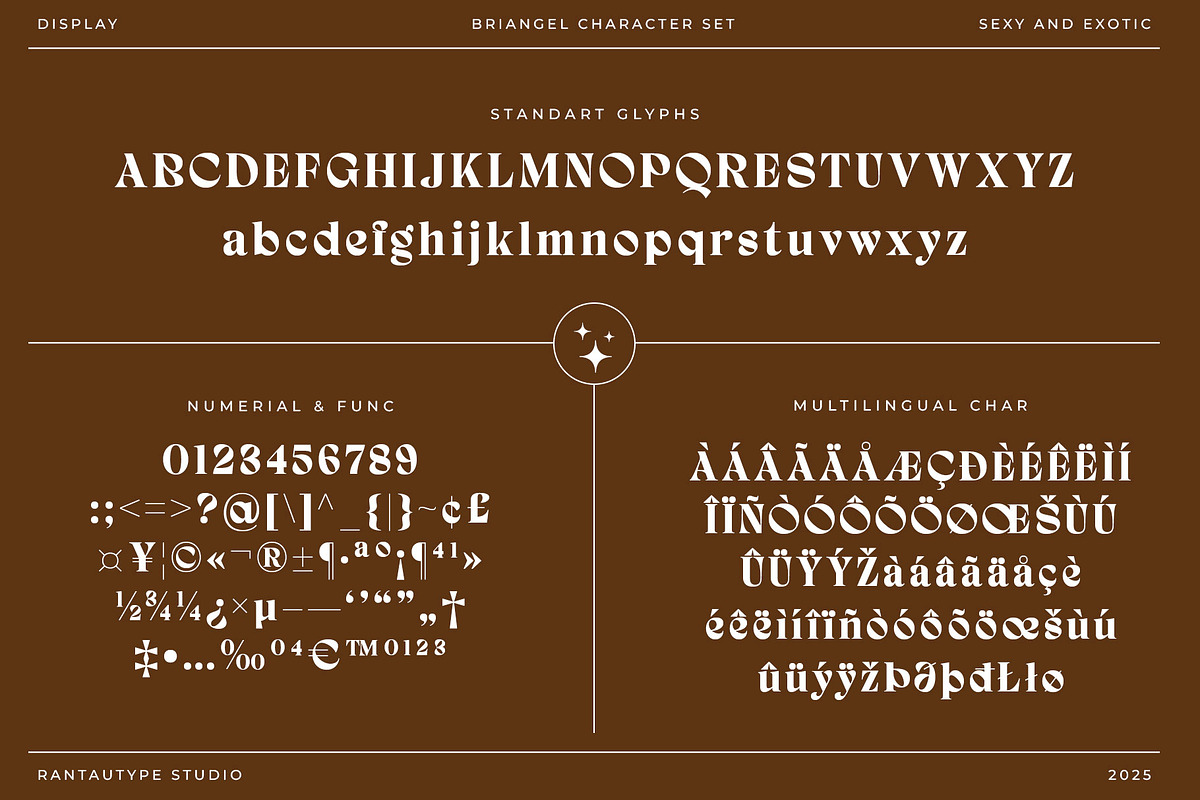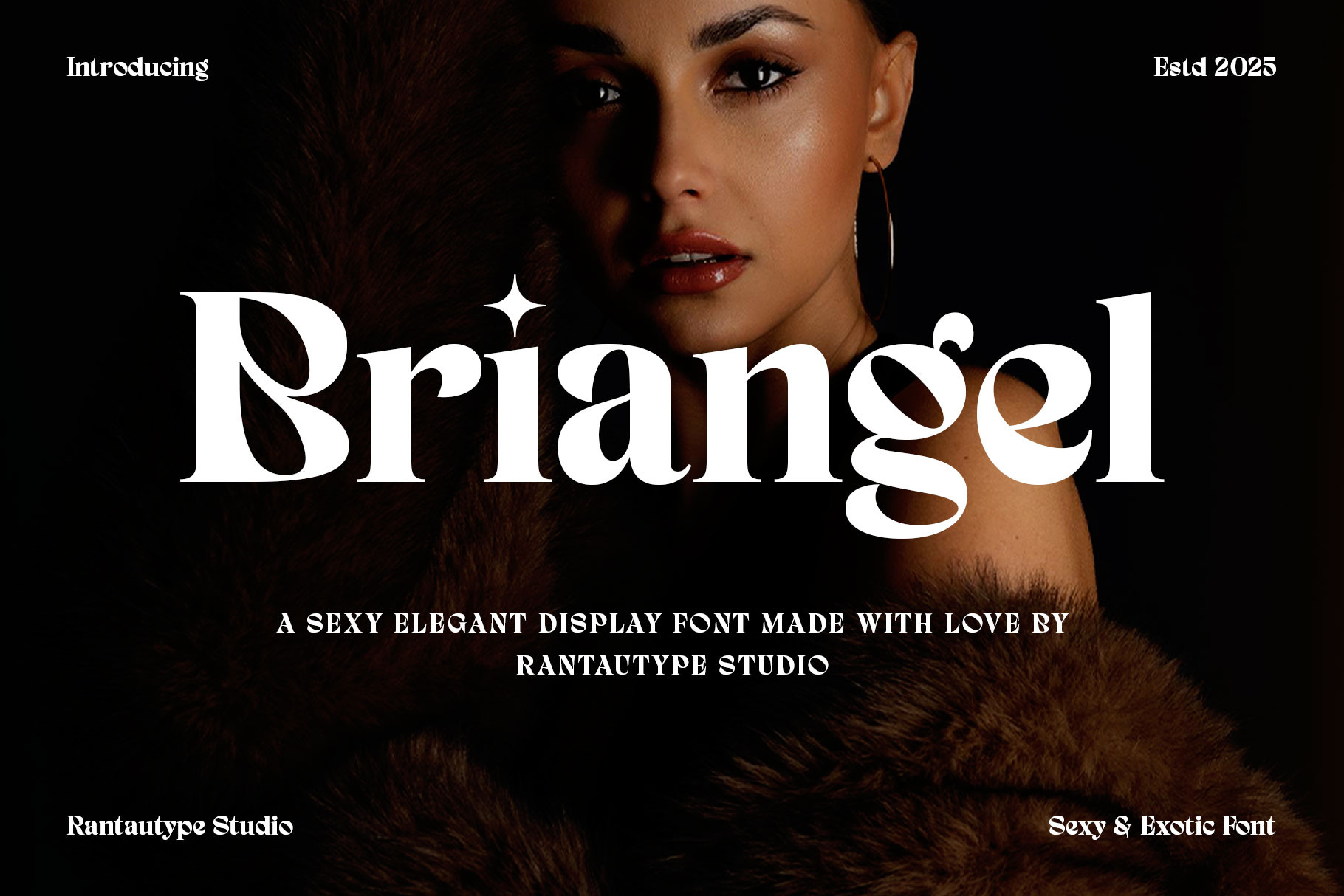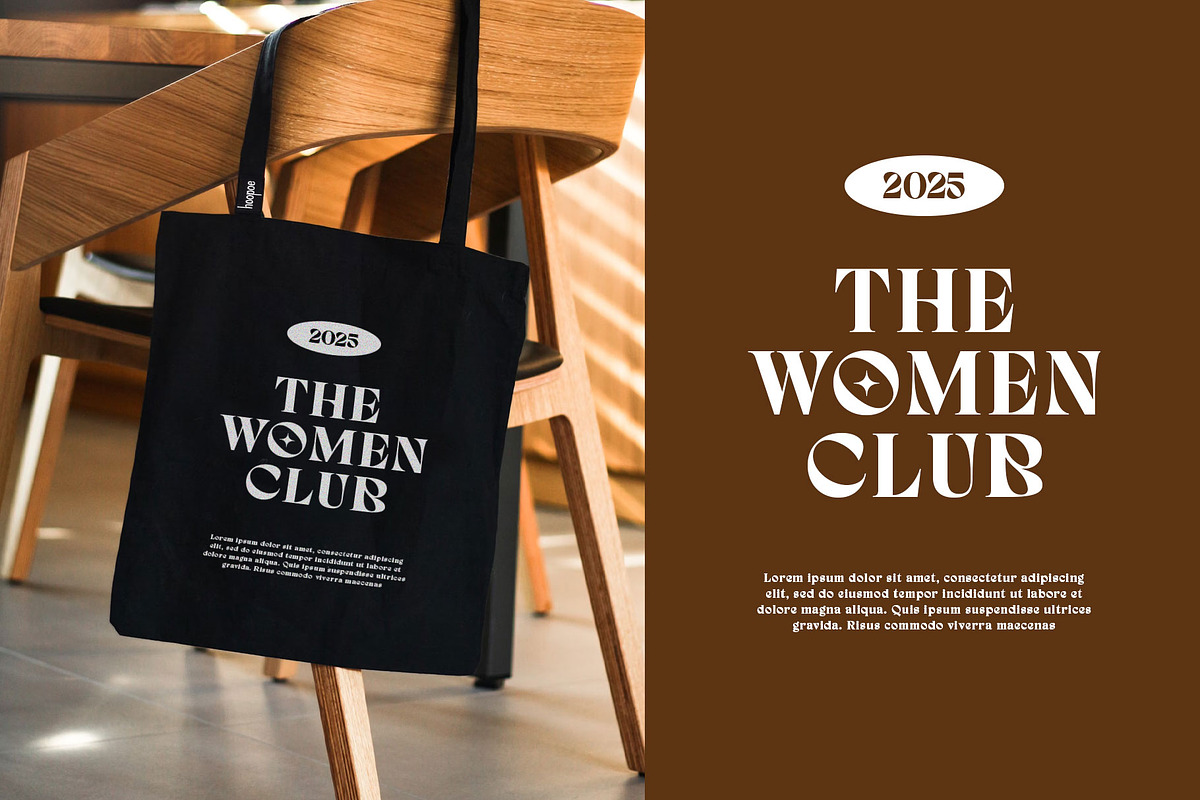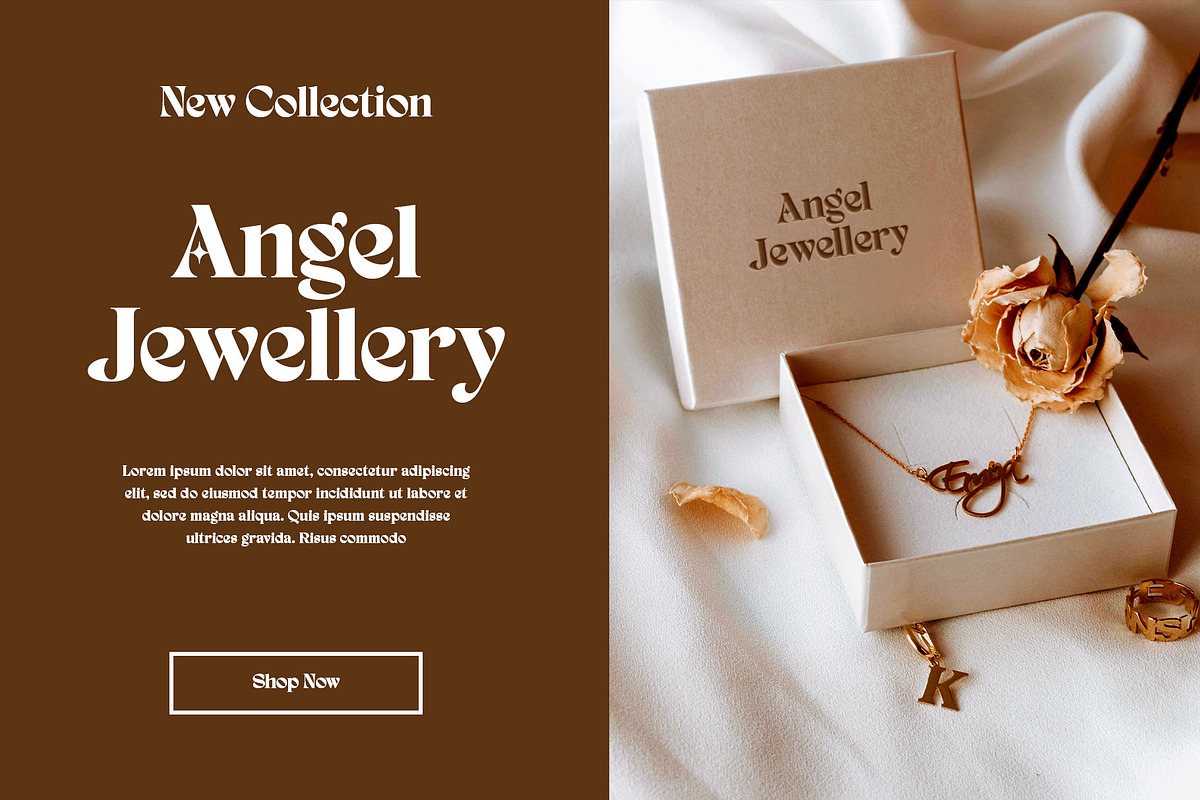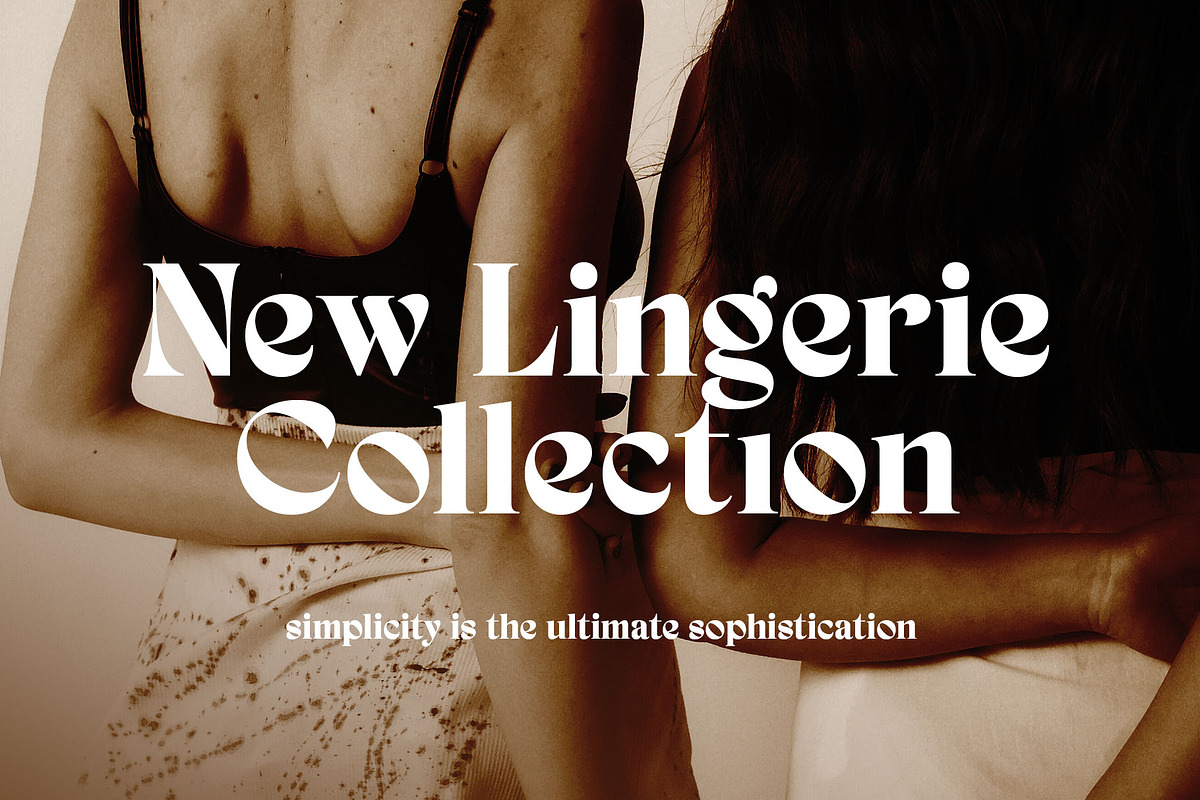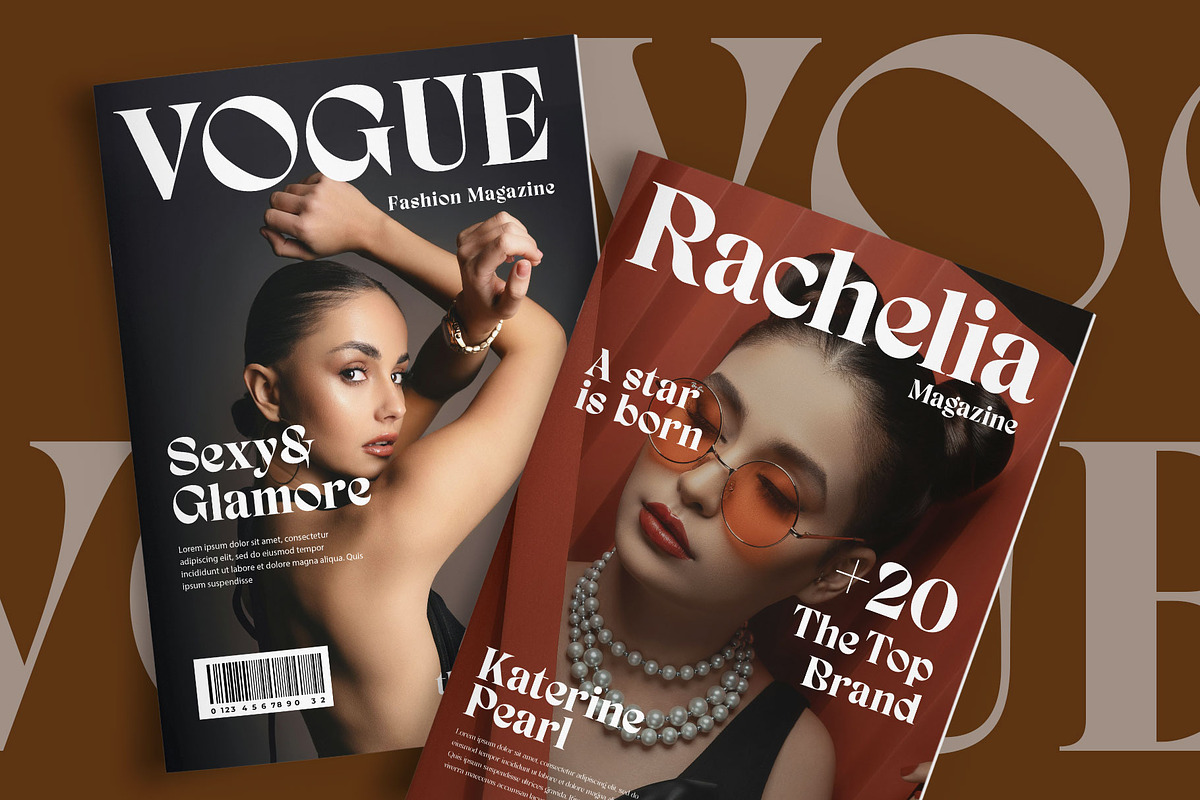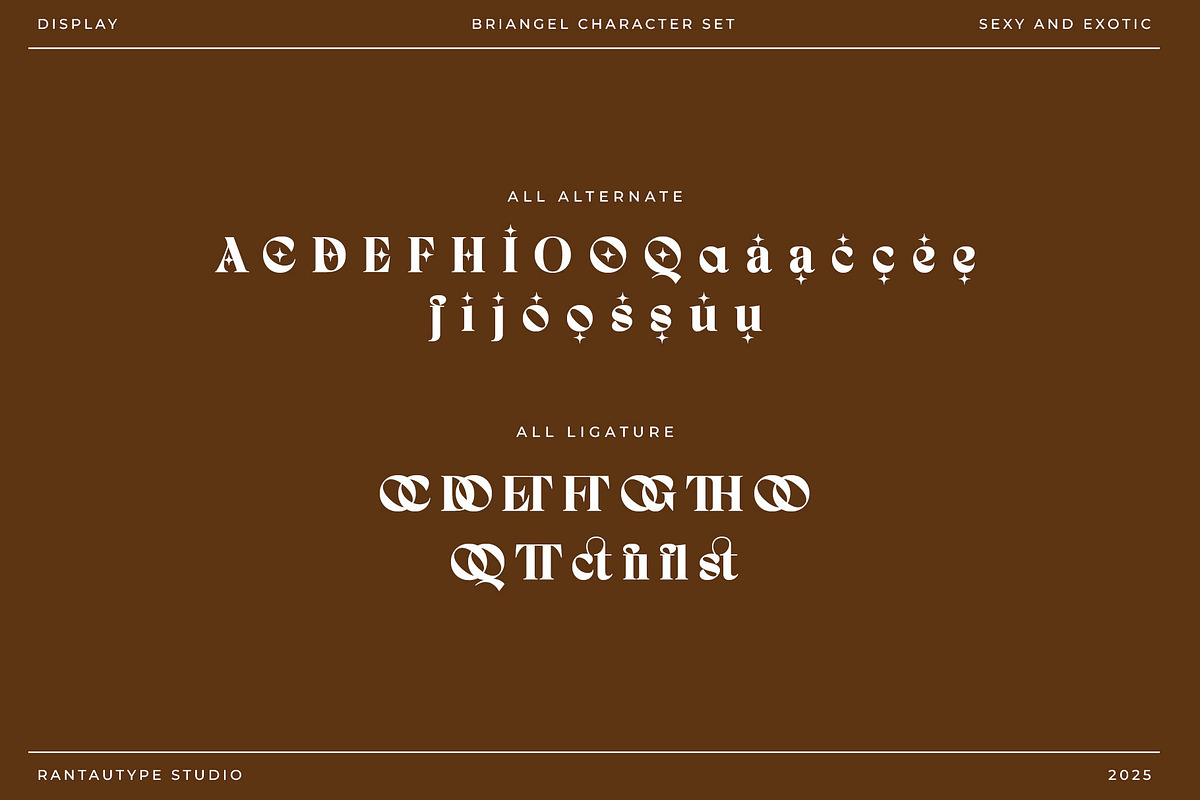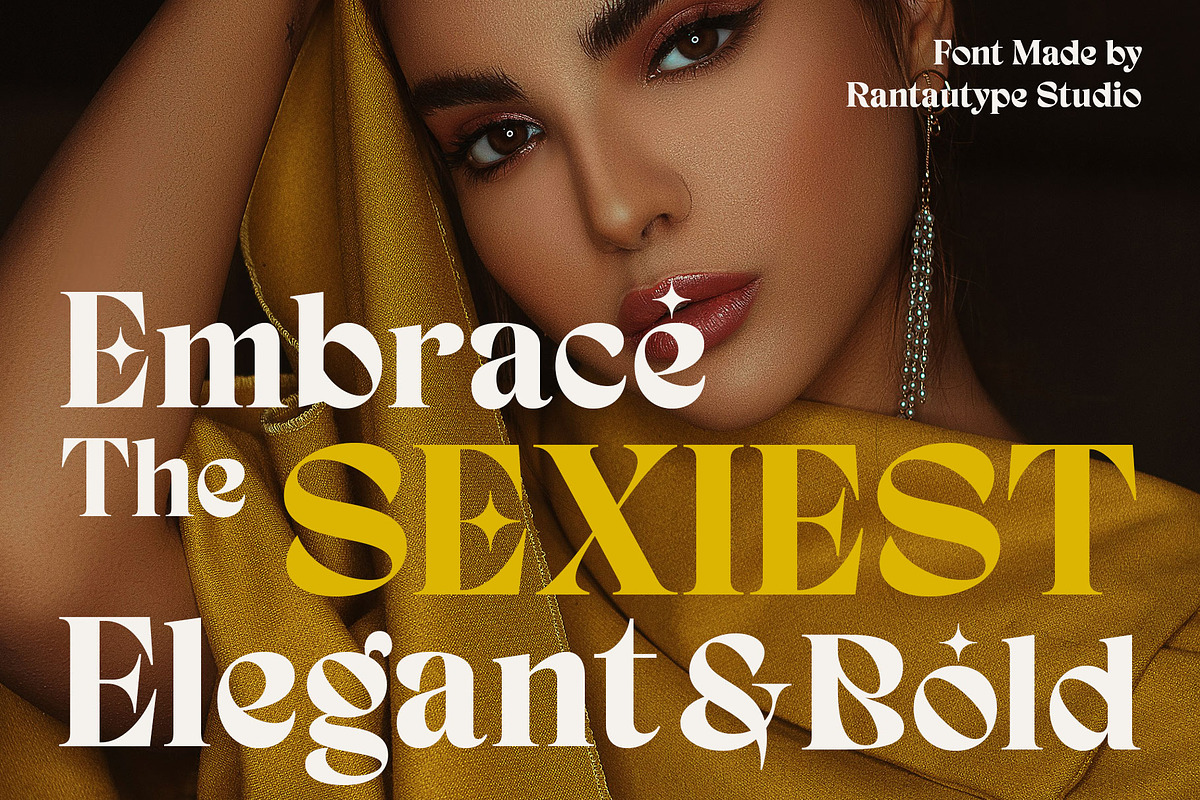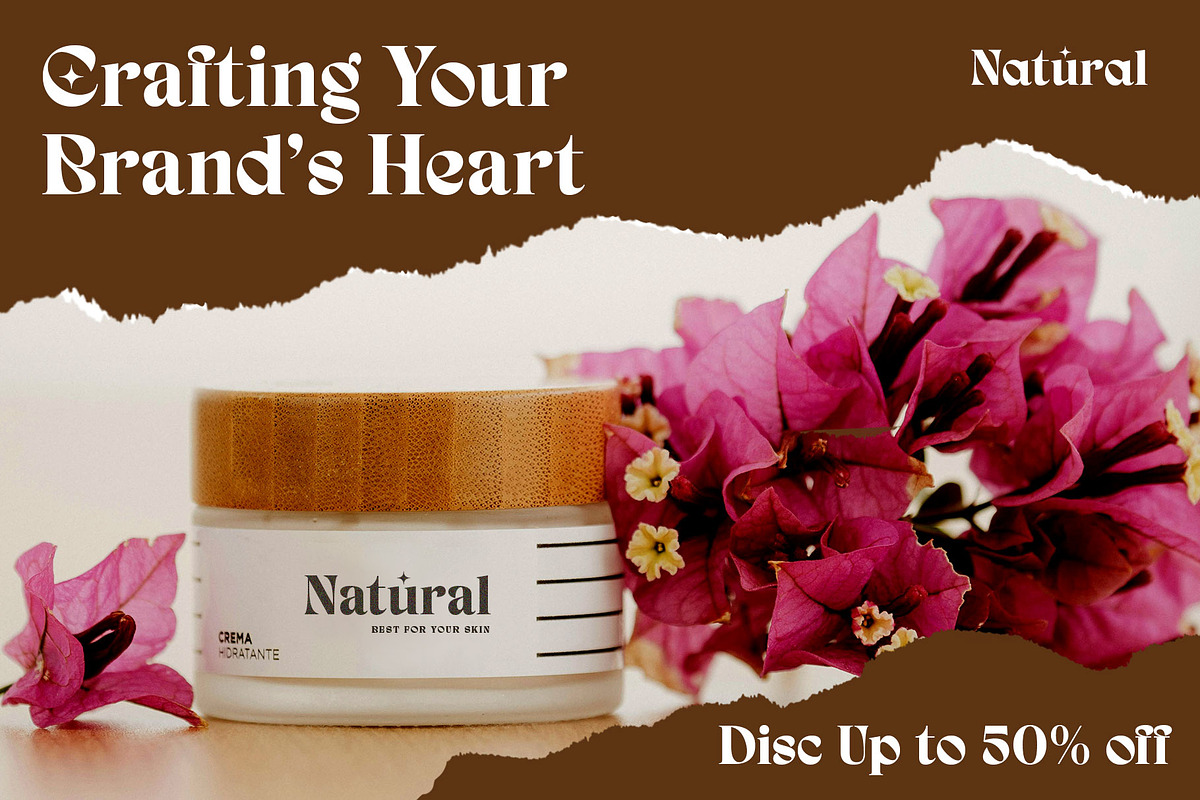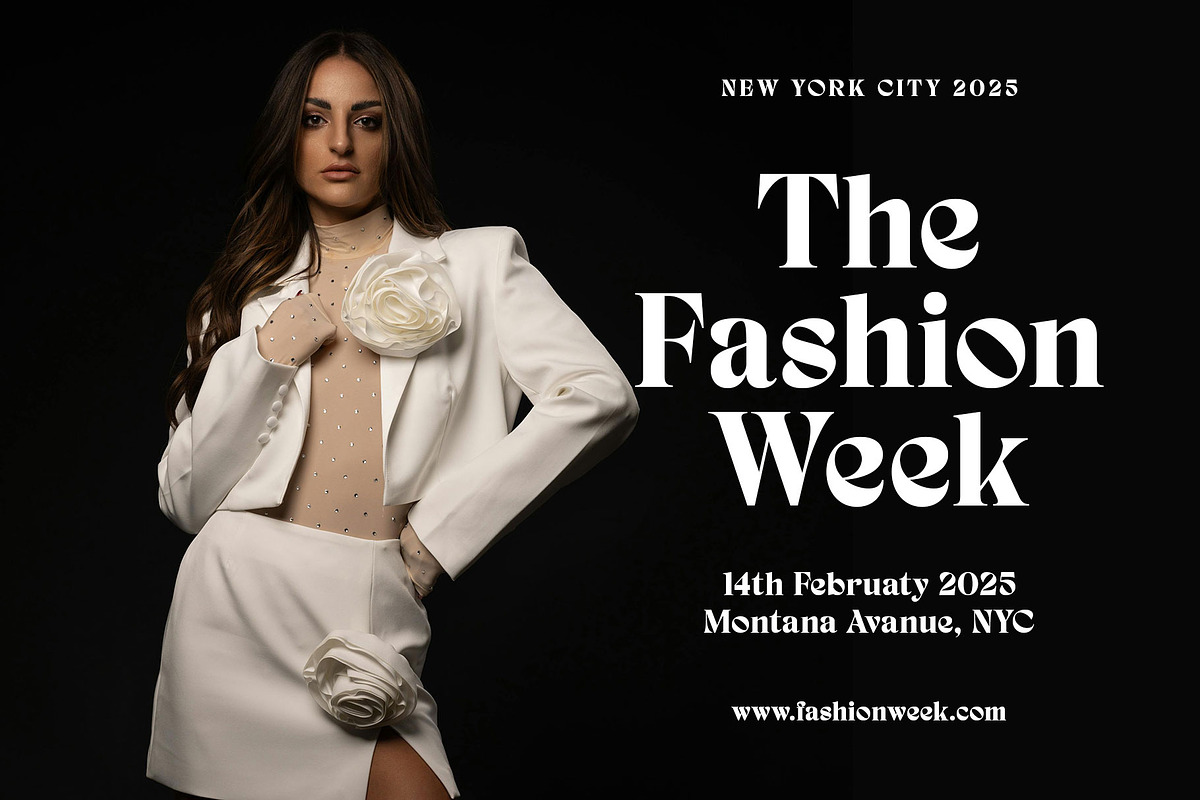
Briangel Exotic Serif Font
Briangel is modern display font with sexy and exotic character. Briangel bring unique shape into typography to create your project look awesome. Briangel is a perfectly choice for any creative endeavor, chic, lifestyle design such as logotype, advertisements, watermark on photography, stationery, branding project, display and magazine, invitation, corporate brand, product design, label, business project and many other project with elegant touch.
- Alternate and ligature
Fonts include Multilingual Character for: Afrikaans, Albanian, Asu, Basque, Bemba, Bena, Breton, Chiga, Cornish, Dutch, English, Estonian, Filipino, Finnish, Friulian, Galician, Gusii, Indonesian, Irish, Italian, Kabuverdianu, Kalenjin, Kinyarwanda, Luo, Luxembourgish, Luyia, Machame, North, Oromo, Portuguese, Quechua, Romansh, Rombo, Rundi, Rwa, Samburu, Sango, Sangu, Scottish, Gaelic, Sena, Shambala, Shona, Soga, Somali, Spanish, Swahili, Swedish, Swiss, German.